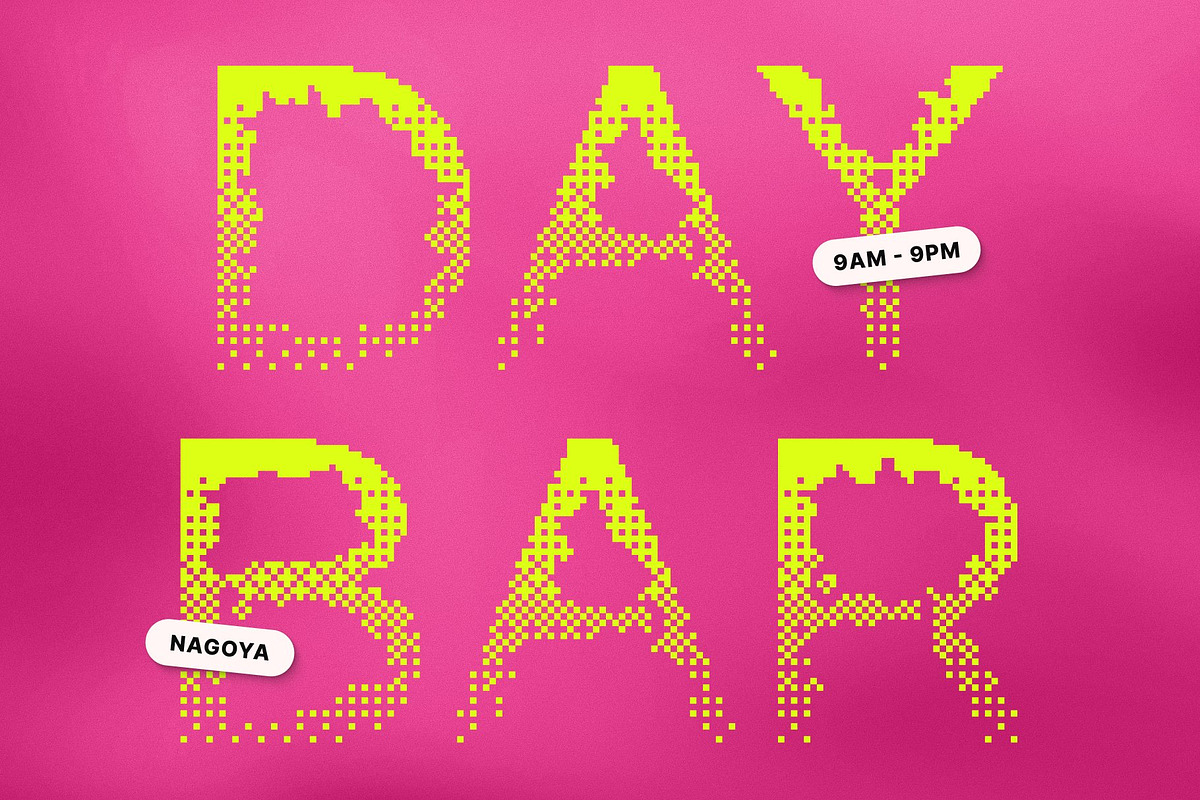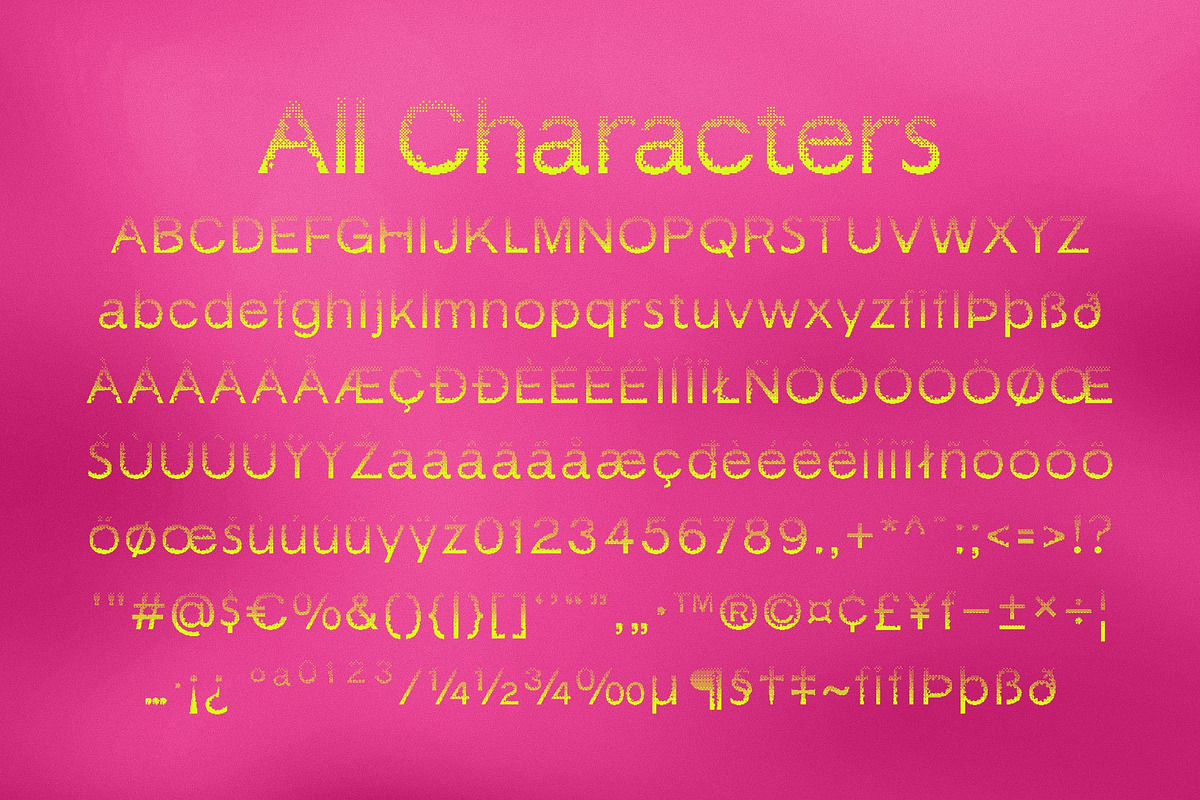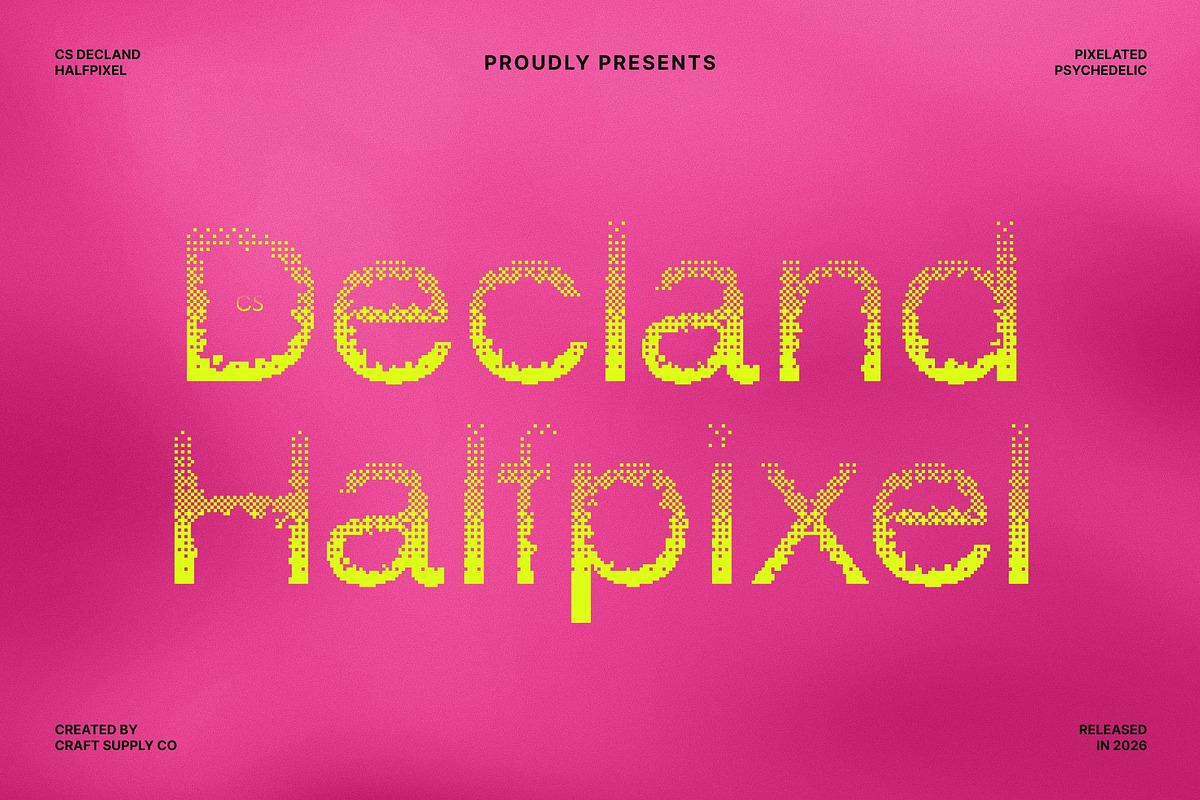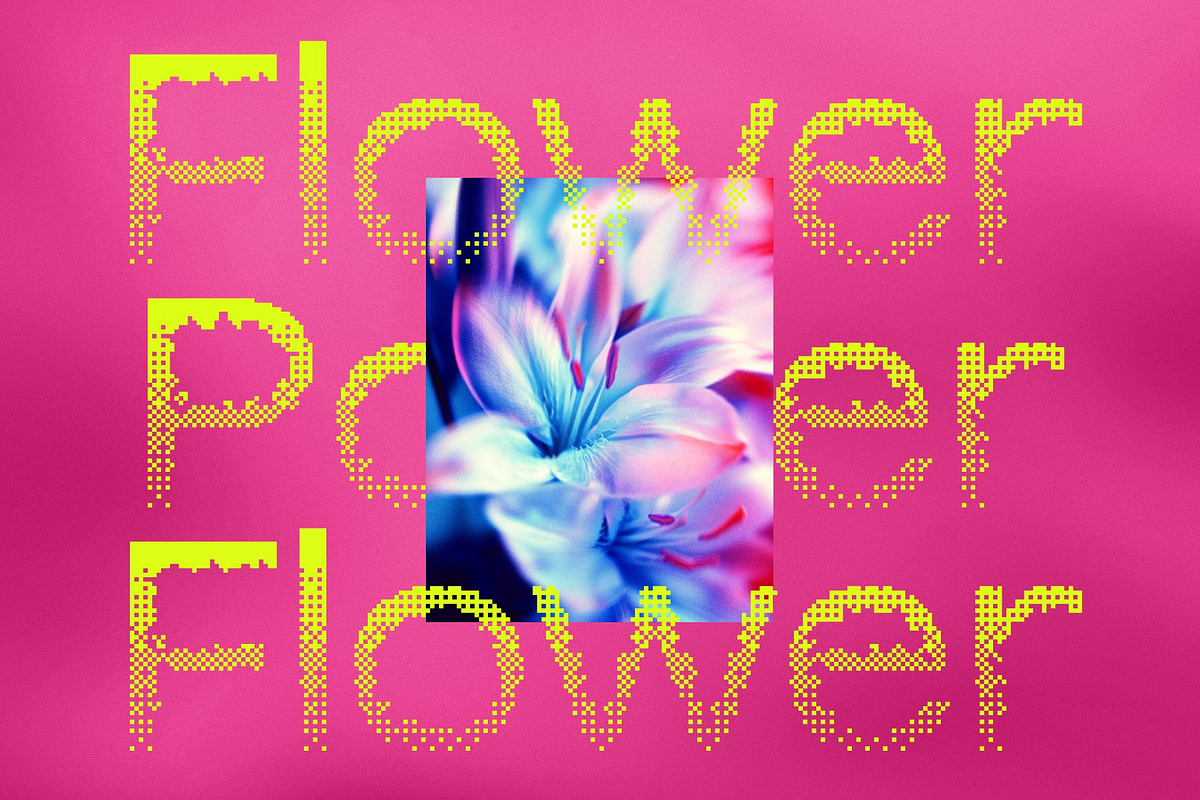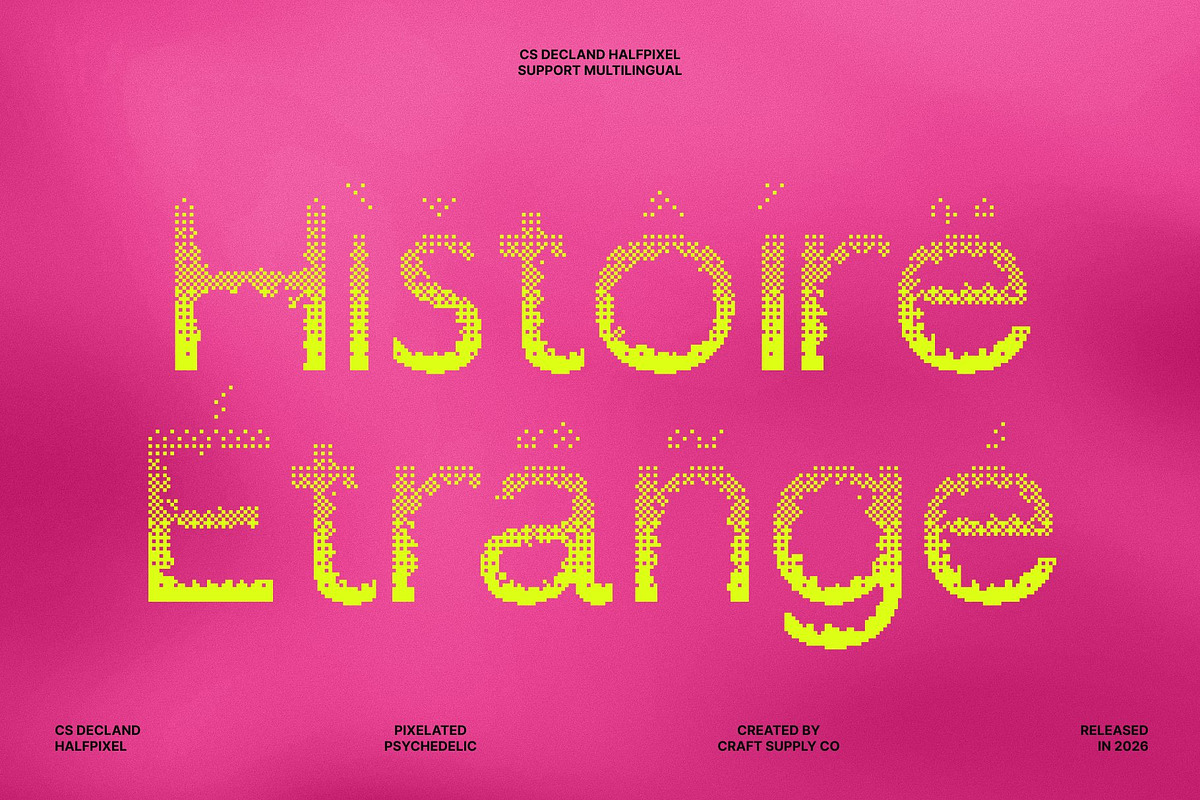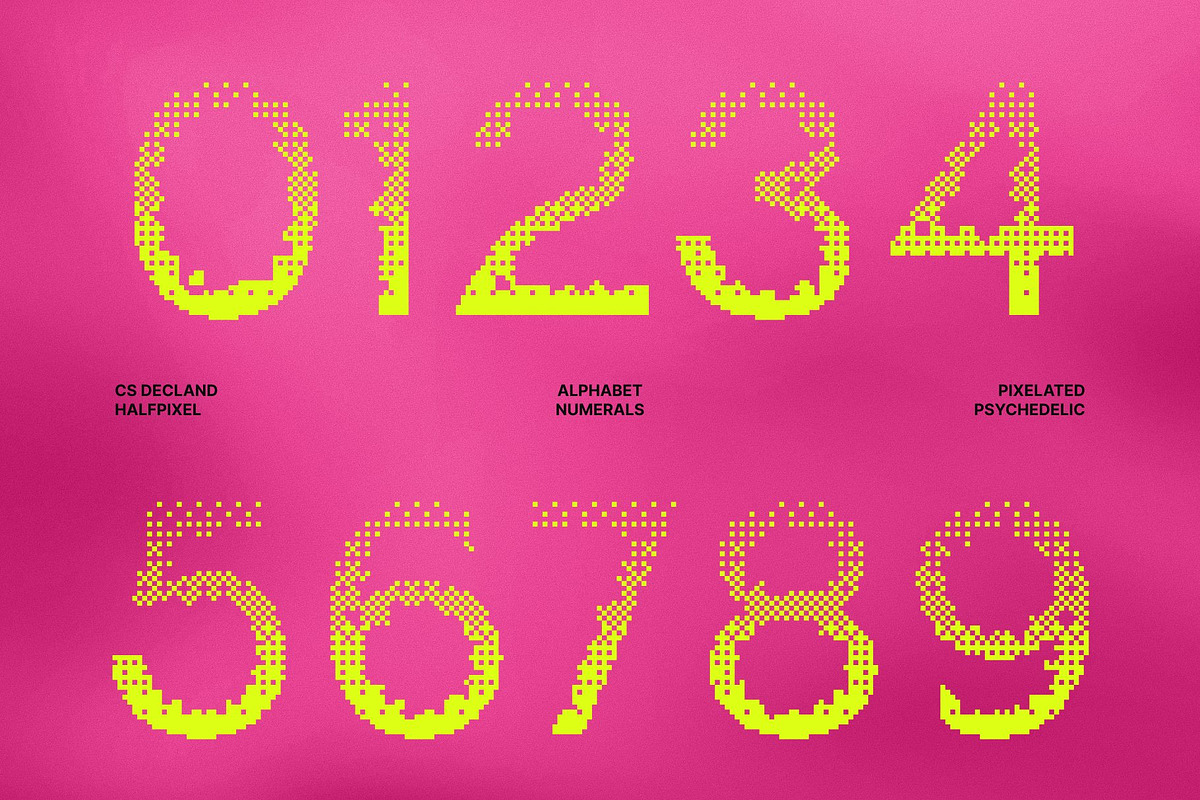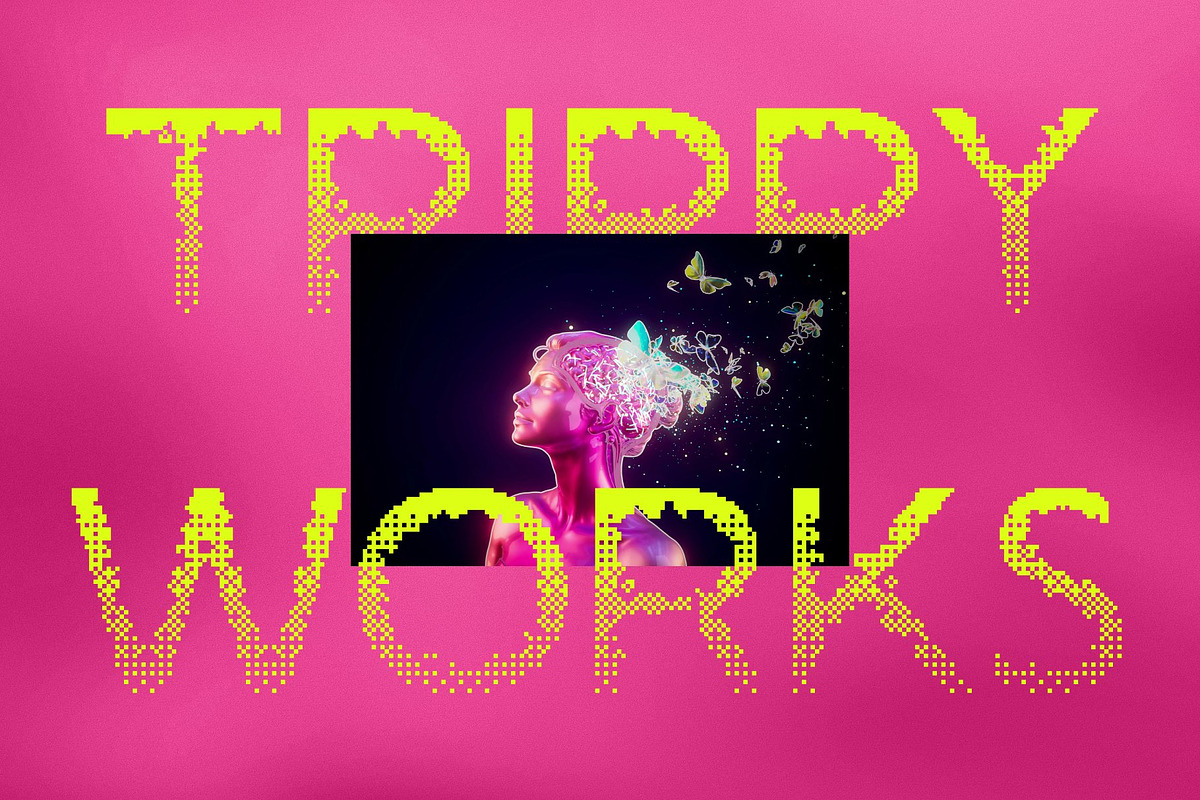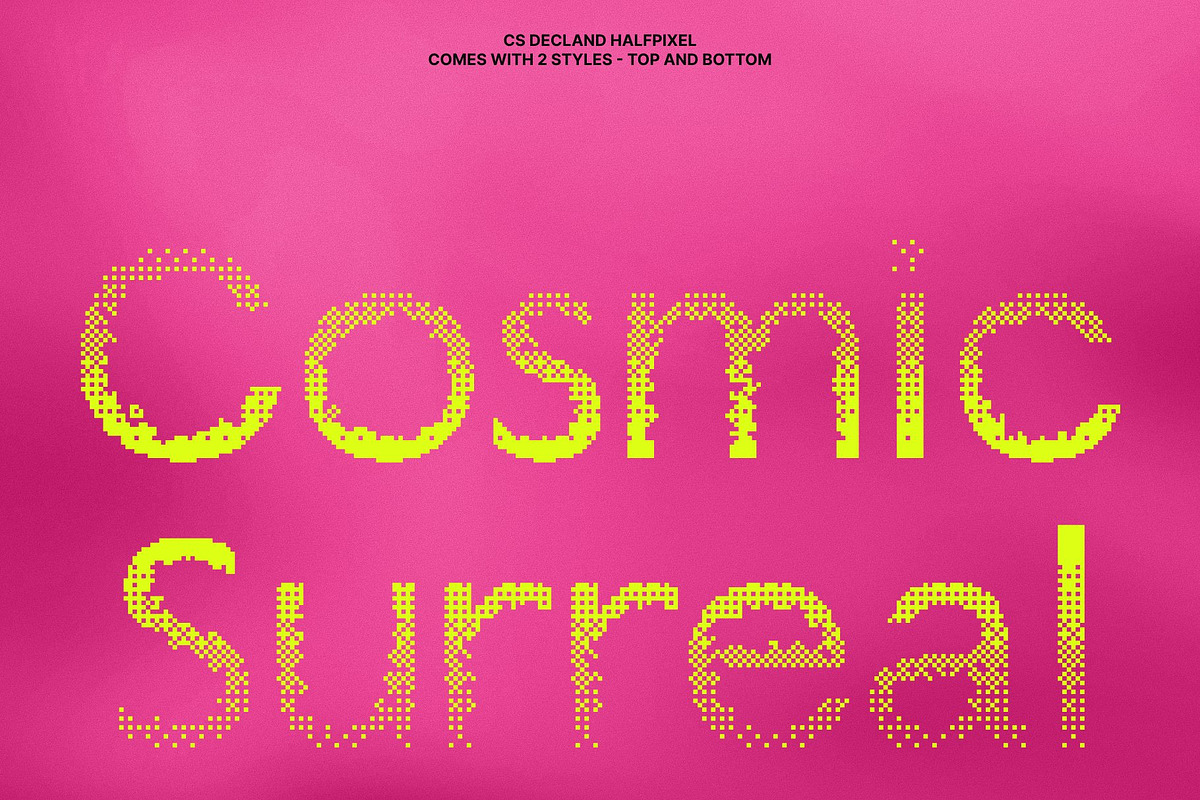
CS Decland Halfpixel
CS Decland Halfpixel – Psychedelic Display Font: Where Vibrant Distortion Meets Smooth Digital Texture
Swirling Experimental Forms with Energetic Expression This is a psychedelic display font designed with unconventional curves, swirling shapes, and vibrant visual energy. Its bold distorted forms create a striking appearance filled with movement, creativity, and expressive personality. Every character feels dynamic and immersive, making the font perfect for eye-catching display compositions and high-energy artistic projects.
Halfpixel Effect with Smooth Retro-Digital Aesthetic This font delivers a smoother and softer appearance than traditional pixel fonts. Using subtle anti-aliasing-inspired detailing, the edges of the letters gain a gentle blur effect that preserves the retro-digital atmosphere while creating a more fluid and contemporary visual experience. This balance between pixel influence and smooth distortion gives the font a futuristic yet organic personality.
Psychedelic Style with Futuristic Digital Energy Blending psychedelic typography with halfpixel refinement, this font delivers a typographic identity that feels experimental, immersive, and visually electrifying. Its swirling forms and softened digital texture evoke music culture, retro-futurism, underground visuals, and expressive artistic movements.
Perfect for Posters, Festivals, and Expressive Branding This is perfect for music posters, festival graphics, event promotions, merchandise, album covers, expressive branding, digital visuals, and creative promotional materials. Its distorted halfpixel forms make it ideal for logos, apparel graphics, social media visuals, and visual identities that seek a bold and unforgettable appearance.
CS Decland Halfpixel Regular
CS Decland Halfpixel Italic